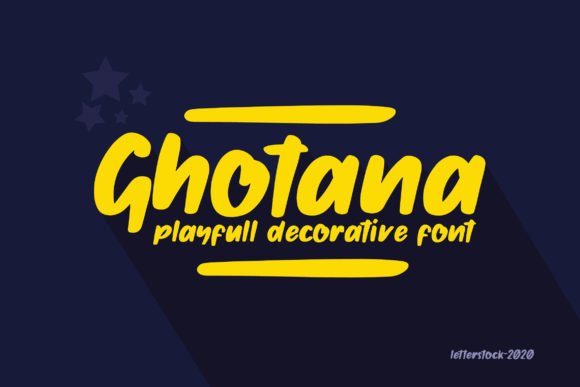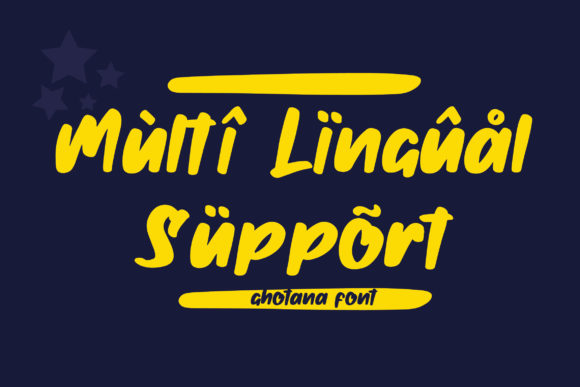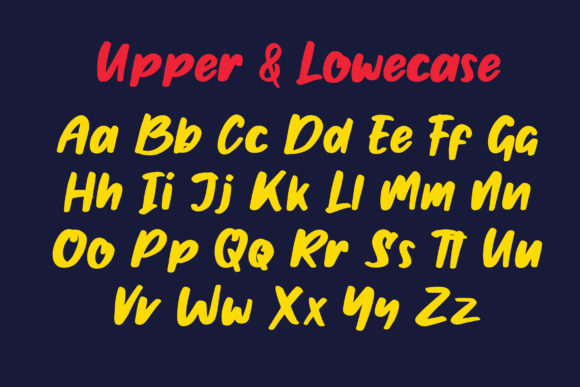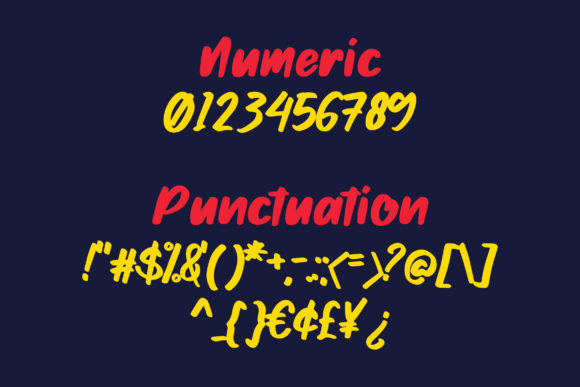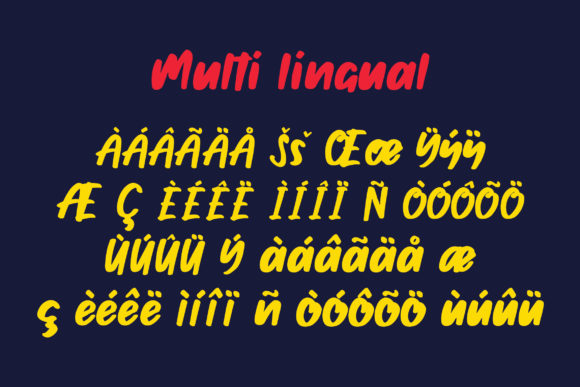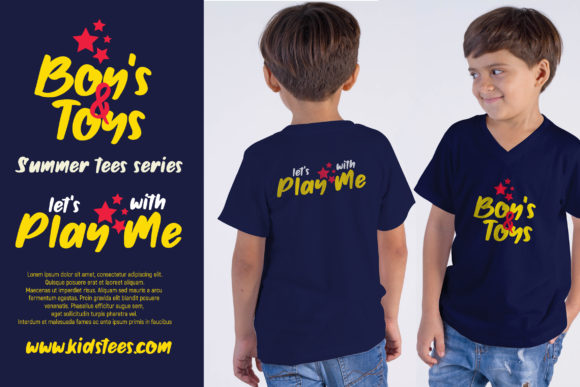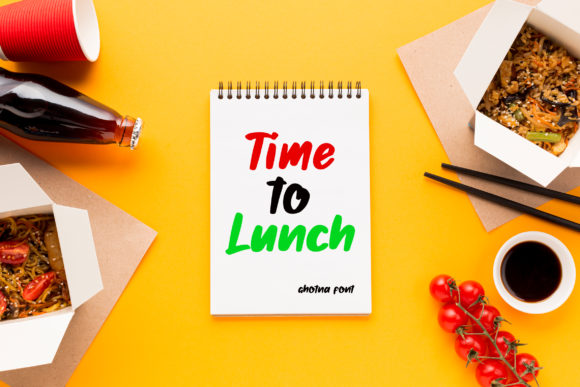
The Perfect Brushstroke: Discovering the Ghotana Font
Have you ever sat at your desk, staring blankly at a blank page, trying to find the perfect font to bring your design to life? I know I have. Sometimes it’s the smallest, quirkiest detail that can make all the difference between a good design and a great one. For me, that detail was the Ghotana Font – a bold, chunky, and masterfully designed handwritten font that’s been a game-changer in my creative process.
As a designer, you know how important it is to find the right font to convey your message and capture your audience’s attention. The Ghotana Font is the perfect solution for logos, branding, packaging design, and more. Its unique characters will add a touch of personality to your designs, making them truly stand out from the crowd.
- Unique Characteristics: The font features a unique blend of traditional and modern elements, with intricate details and subtle flourishes that set it apart from other fonts.
Ghotana Font Review
Ghotana Font is an interesting addition to the font family. I must say that I was initially drawn to its unique aesthetic and the wide range of languages it supports. ✨ The font’s ability to cater to multiple languages and scripts is a significant advantage in today’s globalized world. It’s perfect for designers who need to create content that appeals to a diverse audience.
- Supports multiple languages and scripts
- Unique aesthetic that can add a touch of elegance to designs
- Perfect for globalized content creation
However, I do have some reservations about the font’s overall quality. ⚠️ The font’s rendering can be inconsistent across different devices and platforms. I’ve noticed that the font can appear blurry or pixelated on certain screens, which can be a major issue for designers who prioritize high-quality typography.
Overall, I would say that Ghotana Font has potential, but it needs some refinement to become a top-tier font. With some tweaks to its rendering and consistency, I believe this font could be a game-changer for designers. As it stands, it’s a decent option for those who need a font that supports multiple languages, but it’s not yet a go-to choice for high-end design projects.
Getting the Most Out of Ghotana Font
To get the most out of Ghotana Font, experiment with different font sizes, colors, and styles to create a unique visual effect.
Ghotana Font is ideal for creating eye-catching headlines, titles, and logos. It’s also great for adding a touch of elegance to your designs.